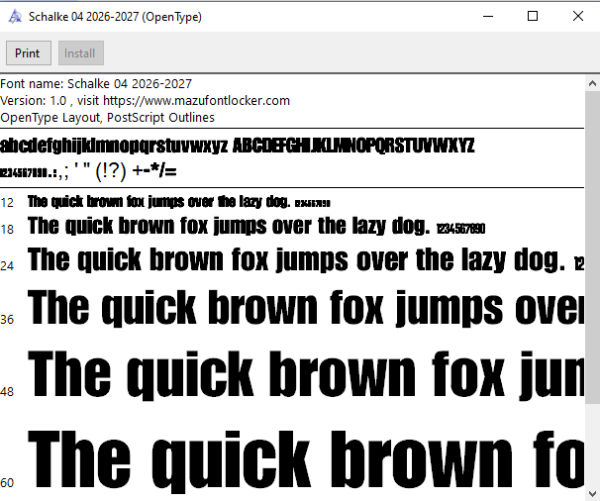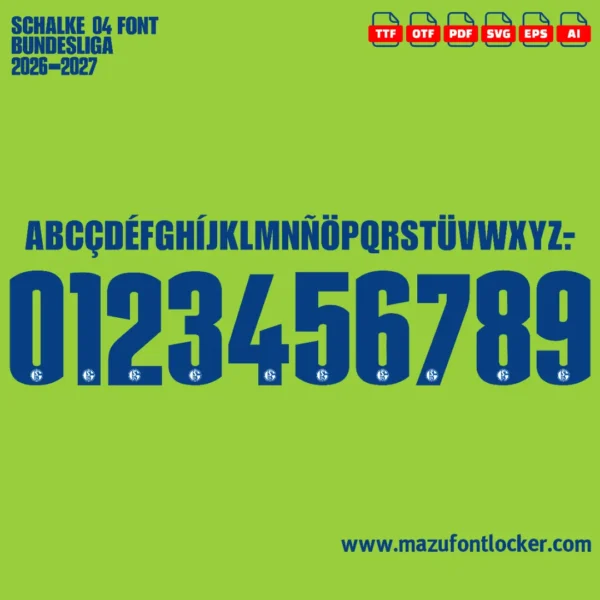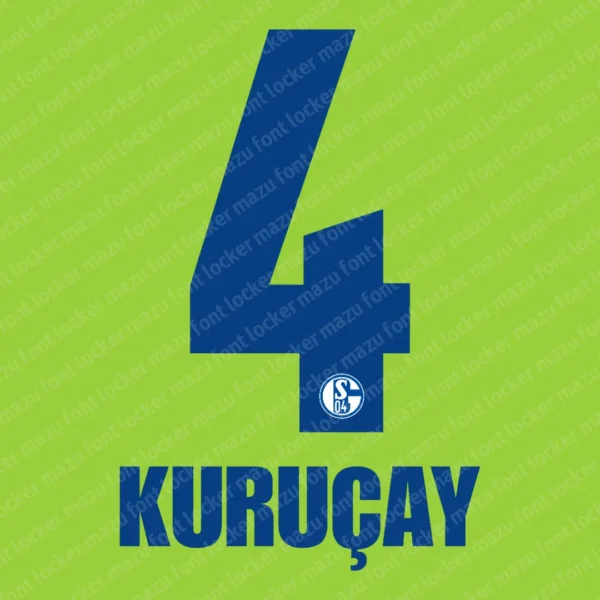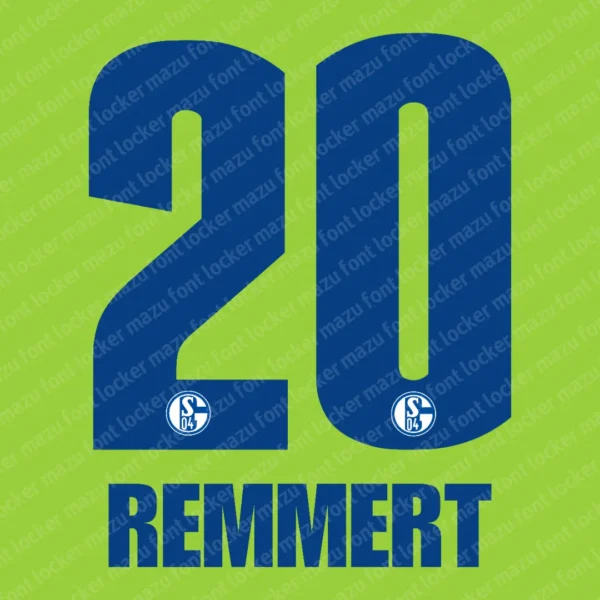
Schalke 04 2026-2027 Font Vector – Epic Königsblauen Blue Masterpiece
This font captures the commanding, sharp, and powerful lettering that perfectly embodies Schalke 04’s legendary club identity, proud Ruhr region heritage, never-say-die mentality, and raw German football power — delivering unmatched authenticity, premium quality, explosive energy, and elite Bundesliga dominance for professional jersey mockups, dynamic football graphics, premium sports branding, passionate fan creations, and high-end design projects.
Schalke 04 2026-2027 Font Vector – Legendary Blue Typeface
The Schalke 04 2026-2027 Font Vector is a premium typeface that accurately recreates the official match lettering worn by Schalke 04 during the 2026-2027 season. This high-quality vector font kit captures the bold, passionate, and instantly recognizable typography that perfectly complements the club’s traditional blue and white identity.
Designed for professional designers, football enthusiasts, and passionate Schalke supporters, the Schalke 04 2026-2027 Font Vector delivers exceptional authenticity for creating realistic jersey mockups, football merchandise, social media graphics, match posters, and custom fan artwork. Every character has been carefully recreated to match the classic visual style of one of Germany’s most historic football clubs.
This font stands out thanks to its precise vector construction and authentic club styling. Every letter and numeral has been meticulously recreated to match the official shirt lettering used throughout the 2026-2027 2. Bundesliga and DFB-Pokal campaign. Whether you’re producing professional kit templates or creating eye-catching football content, the Schalke 04 2026-2027 Font Vector delivers a genuine match-ready appearance.
The lettering featured in the Schalke 04 2026-2027 Font Vector combines clean geometric lines with powerful modern proportions. The result is a premium and highly readable typeface that reflects Schalke 04’s fighting spirit, proud tradition, and loyal fanbase known as the “Knappen”.
• Complete uppercase A–Z alphabet and numbers 0–9 in authentic Schalke 04 2026-2027 style
• Includes authentic league badge glyph placement beneath player numbers